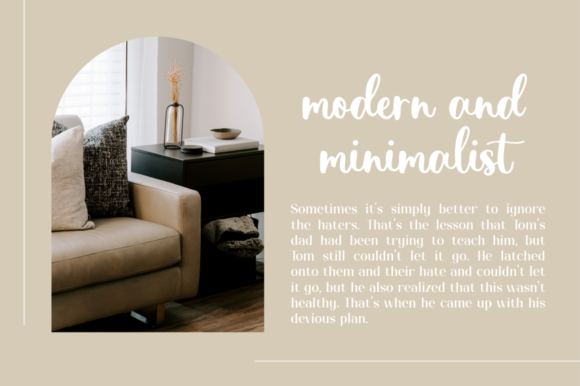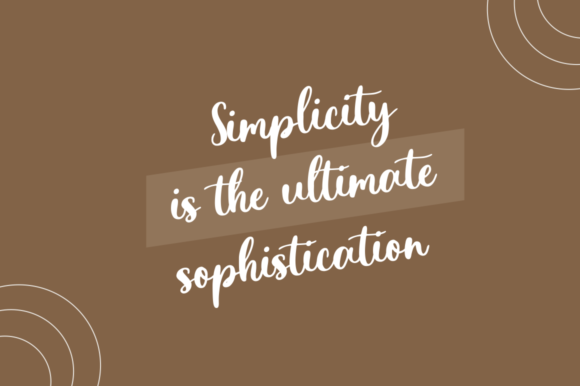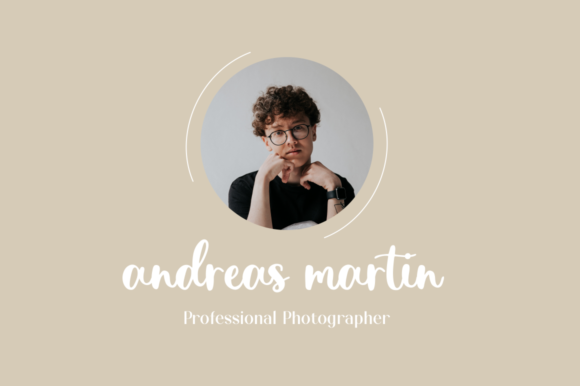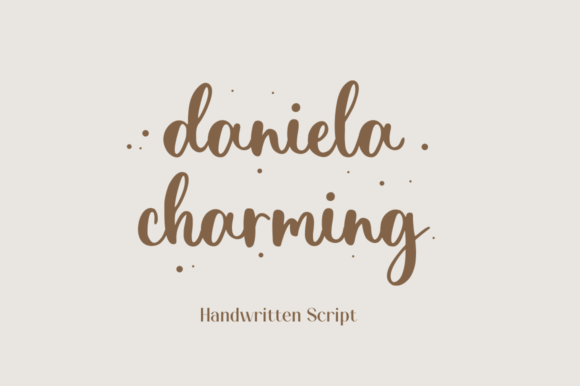
Introduction to Daniela Charming Font
Daniela Charming is a lovely and delicate script font, featuring a relaxed and sweet flow.
It is the best choice for creating eye catching logos, branding and quotes Fall in love with its incredibly versatile style and use it to create spectacular designs.
Key Features of Daniela Charming Font